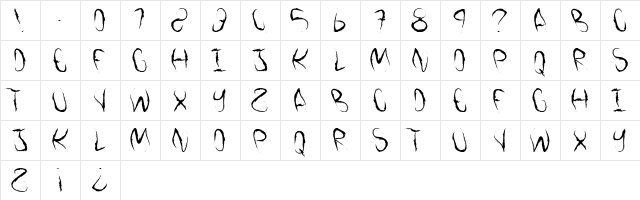
Vamos a la playa Regular
Design Context for Vamos a la playa Typeface
Vamos a la playa is a composed and adaptable typeface that performs quietly and consistently across a wide range of design contexts.